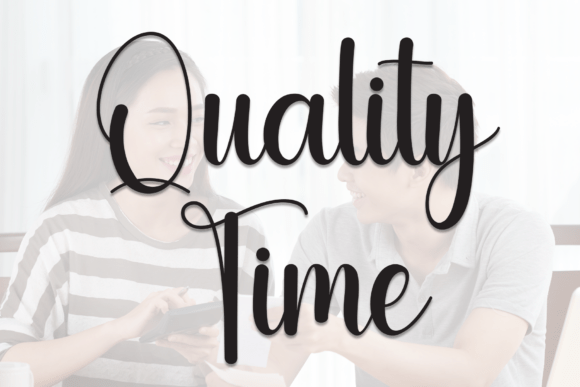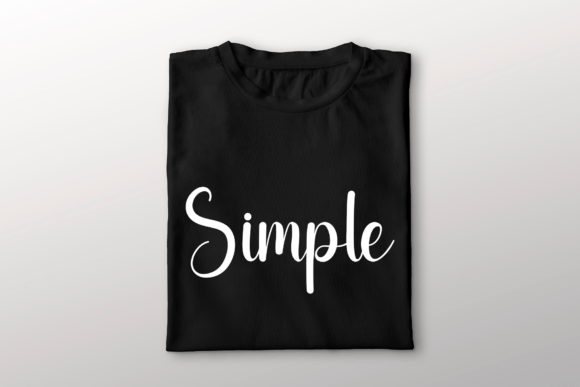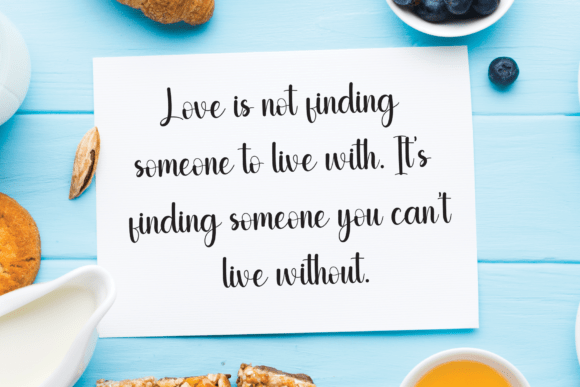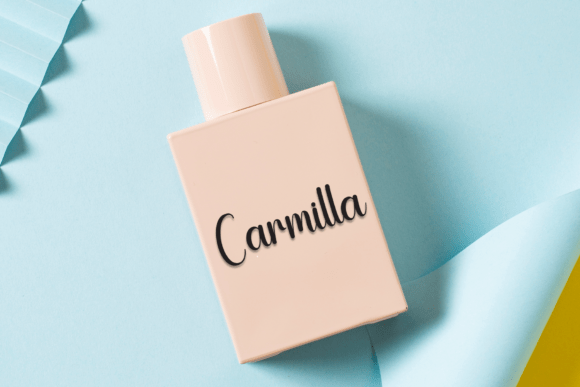
Quality Time Font: Elegant Script for Branding & DIY Cricut Projects
About the Quality Time Font
Make a bold statement with Quality Time Font, a powerful and memorable font. Quality Time is a stylish handwritten script font that exudes elegance and charm with its fluid, graceful strokes. Perfect for branding, invitations, and stationery, it adds a personal and sophisticated touch. The smooth curves and natural flow create a timeless, refined look for any design.
Quality Time’s elegant, flowing nature makes it ideal for projects requiring a touch of sophistication, such as wedding invitations, luxury branding, or high-end product packaging. It also works well in short headlines or quotes where its graceful strokes can be fully appreciated. However, its script style is less suitable for body text or UI elements, where readability is paramount. Extended use could strain readability.
To enhance its impact, pair Quality Time with a clean sans-serif like Lato for a modern contrast, or a classic serif such as Garamond for a timeless feel. A simple geometric sans-serif would also create a pleasing balance, providing structure to the script’s fluidity.
The overall personality of Quality Time is sophisticated and refined, lending itself to brands aiming for an upscale, personal, and memorable image. Avoid pairings that are overly playful or excessively bold; maintaining a sense of calm elegance is key to its successful application.
Quality Time Font Usage Examples
Quality Time Font Example